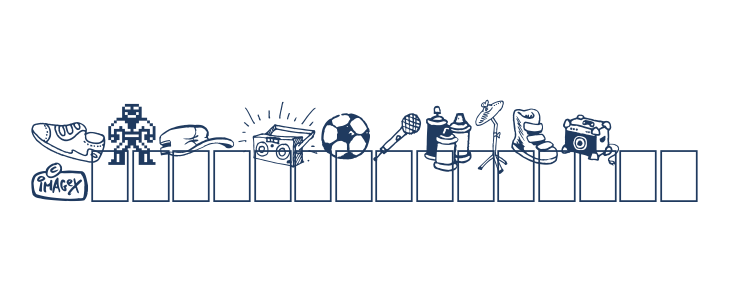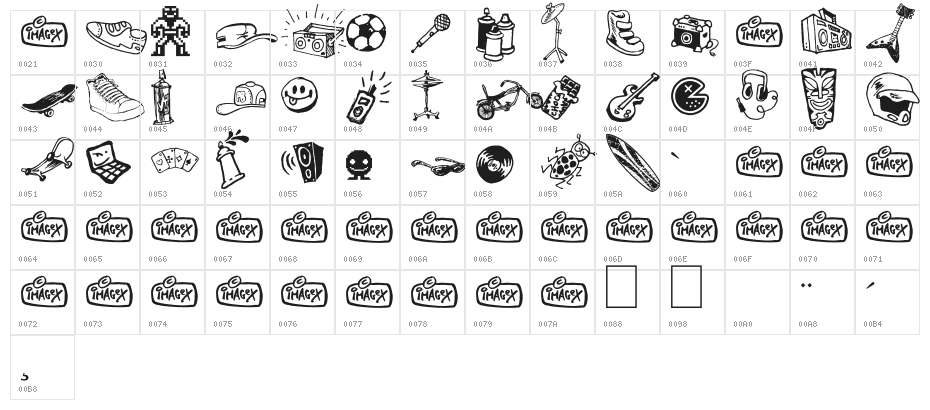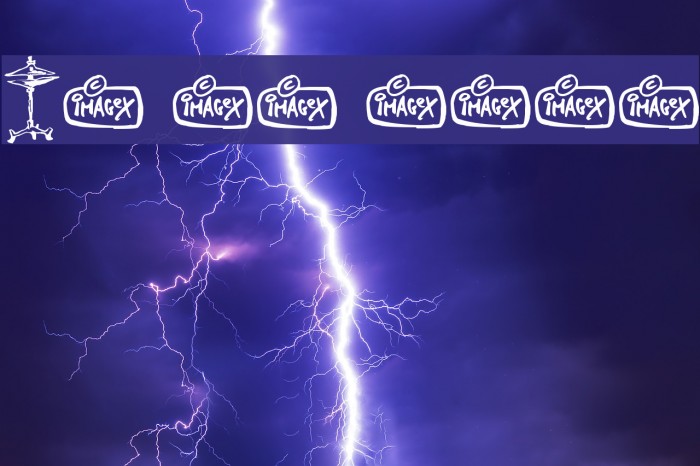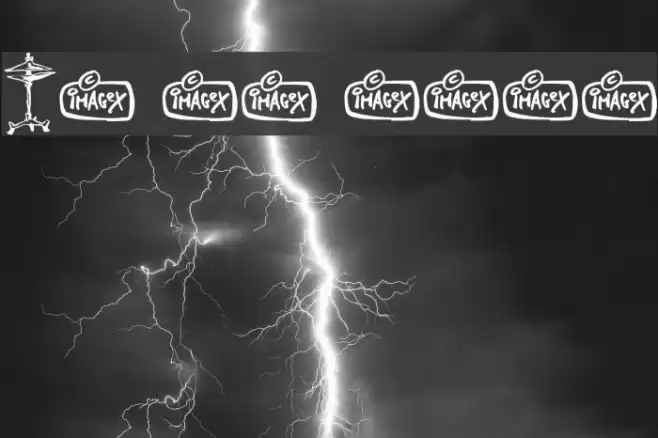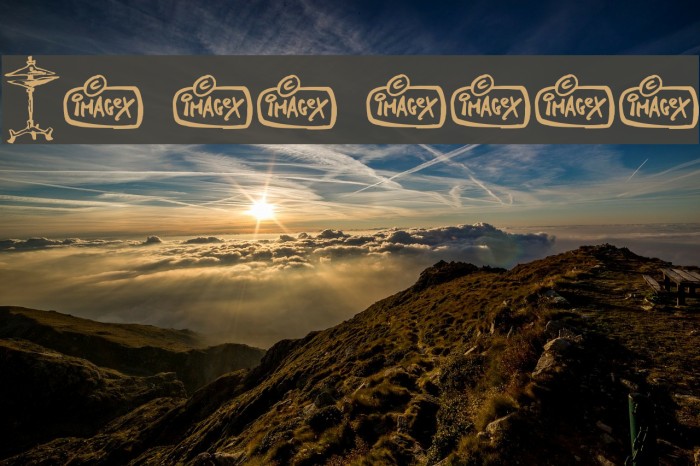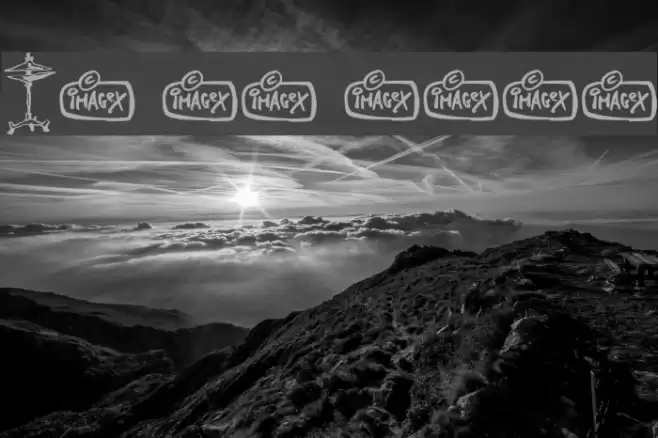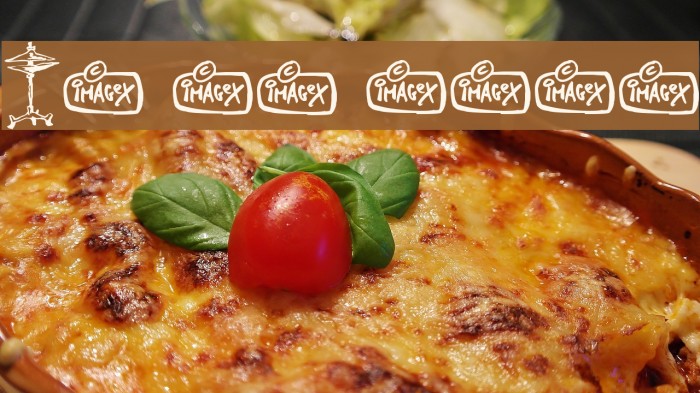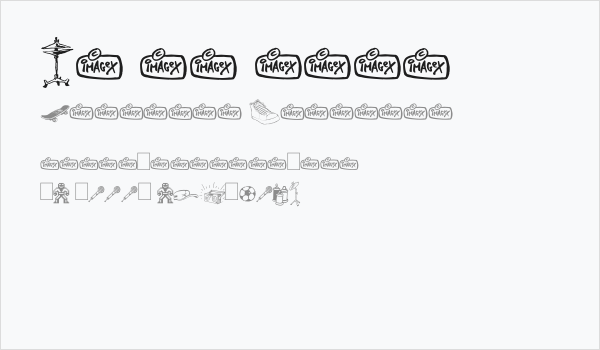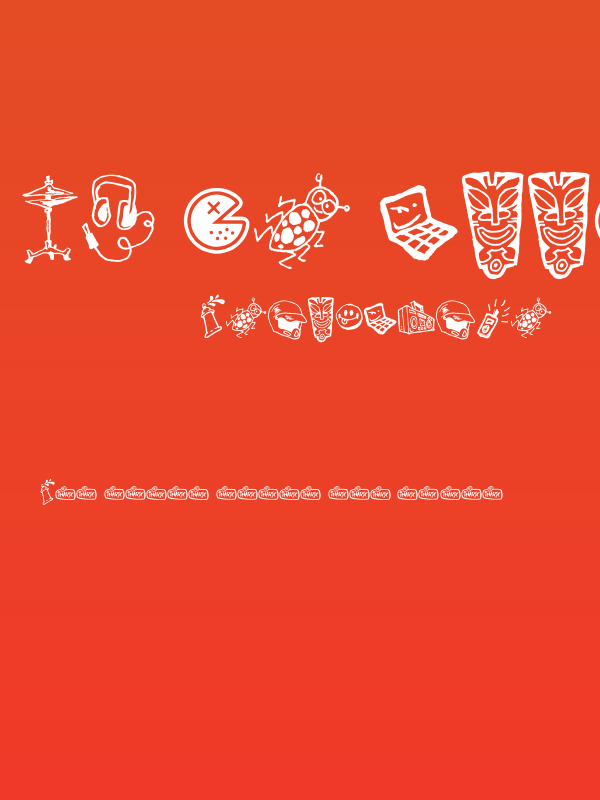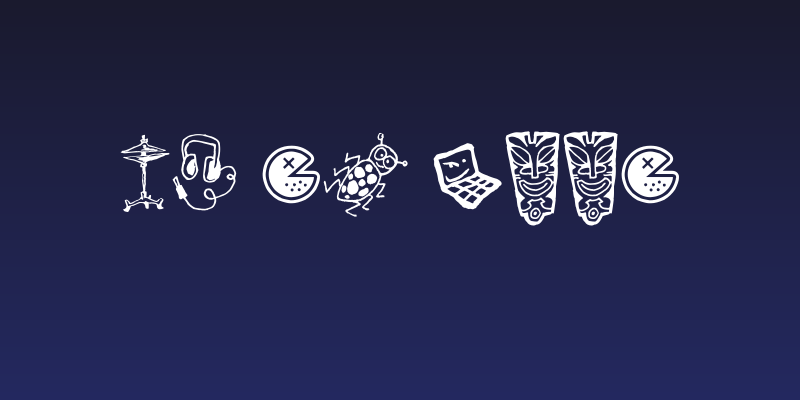
In my room Font
In my room Description
A playful, hand-drawn dingbat set featuring various objects and icons related to music, sports, technology, and hobbies, with a casual and sketchy style. The glyphs are illustrated rather than typographic, with bold outlines and a cartoonish feel.
| Overall Style | Playful, Urban, Decorative |
| Use Case | Logos, Posters, Social media graphics, Themed event materials |
| Proposed Projects | Youth event posters, music flyers, skate shop branding, creative websites, educational materials, social media graphics. |